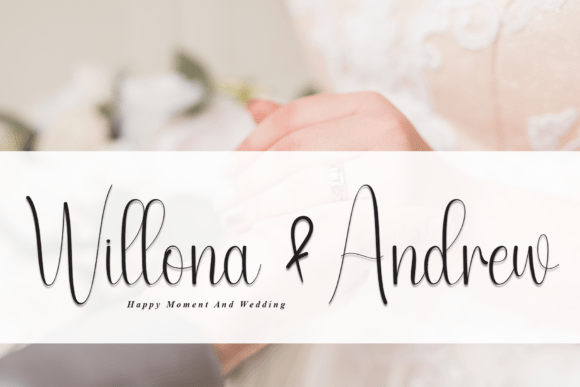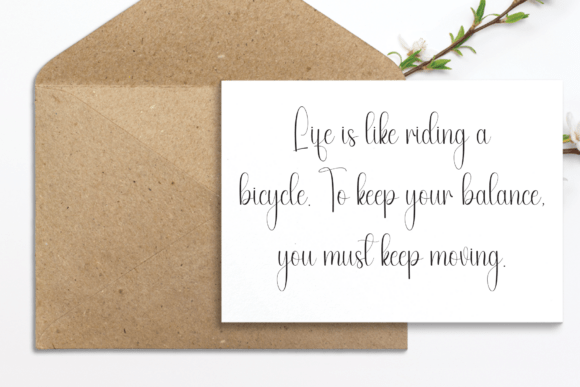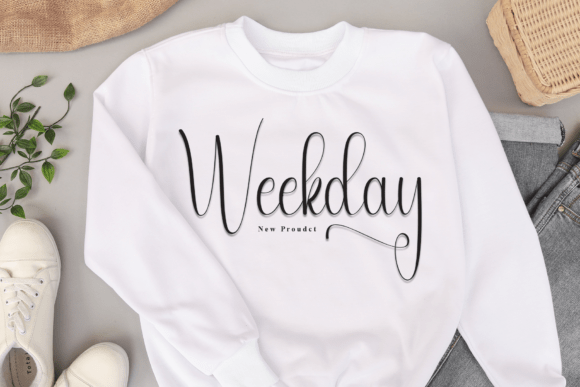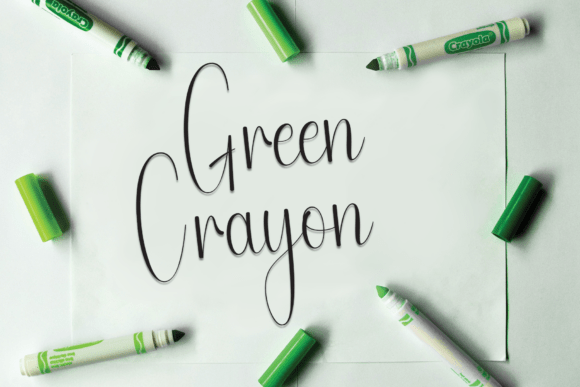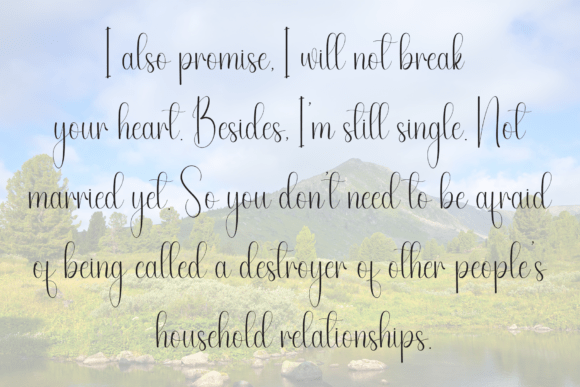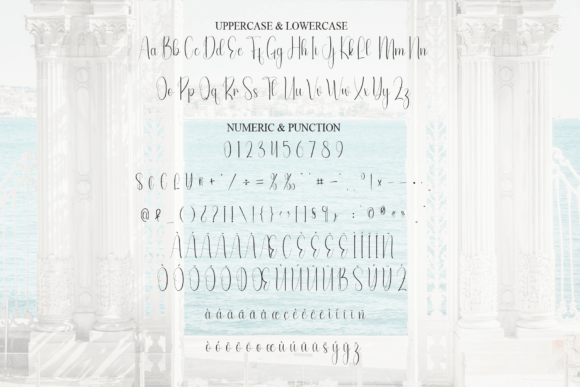
Gatering Font: Elevate Your Designs with Elegance and Fluidity
In the world of typography, a font can make or break a design. For creatives and designers seeking to add a touch of sophistication and elegance to their work, Gatering Font is an exceptional choice. This stylish handwritten script font is designed to radiate luxury and fluidity, making it perfect for a wide range of applications, from branding and invitations to creative projects and more.
The Essence of Gatering Font
Gatering Font is characterized by its smooth, flowing strokes that create a natural and sophisticated feel. Its elegant design strikes a perfect balance between charm and modernity, allowing designers to add a personal, artistic touch to any project. Whether you’re working on a high-end brand identity, a wedding invitation, or a creative endeavor, Gatering Font is sure to make a lasting impression.
Key Features of Gatering Font
• Elegant Handwritten Script: Gatering Font boasts a beautiful, flowing script that exudes elegance and refinement.
• Smooth and Fluid Strokes: The font’s smooth strokes create a natural, sophisticated look that’s perfect for designs that require a touch of luxury.
• Balanced Charm and Modernity: Gatering Font strikes the perfect balance between classic charm and modern style, making it versatile for a wide range of design applications.
• Perfect for Branding and Invitations: With its elegant and sophisticated feel, Gatering Font is ideal for branding, invitations, and other high-end design projects.
Design Applications for Gatering Font
Gatering Font’s versatility makes it suitable for various design applications. Here are some ideas to get you started:
• Branding and Logo Design: Use Gatering Font to create a sophisticated brand identity that stands out from the crowd.
• Wedding Invitations and Stationery: Add a touch of elegance to your wedding invitations, stationery, and other paper goods with Gatering Font.
• Creative Projects: Gatering Font is perfect for creative projects, such as art journals, scrapbooking, and mixed media designs.
• Packaging Design: Elevate your packaging design with Gatering Font, adding a touch of luxury and sophistication to your products.
Tips for Using Gatering Font
To get the most out of Gatering Font, here are some tips to keep in mind:
• Pair with Neutral Backgrounds: Gatering Font looks stunning on neutral backgrounds, allowing the font’s elegance to take center stage.
• Experiment with Colors: Try pairing Gatering Font with rich, bold colors to add depth and contrast to your design.
• Use for Headings and Titles: Gatering Font is perfect for headings and titles, adding a touch of sophistication and elegance to your design.
Gatering Font is a stunning handwritten script font that offers a perfect blend of elegance, fluidity, and sophistication. With its smooth strokes, balanced charm, and modern style, this font is ideal for designers and crafters seeking to elevate their designs. Whether you’re working on a branding project, wedding invitation, or creative endeavor, Gatering Font is sure to make a lasting impression. So why wait? Discover the beauty of Gatering Font and take your designs to the next level.